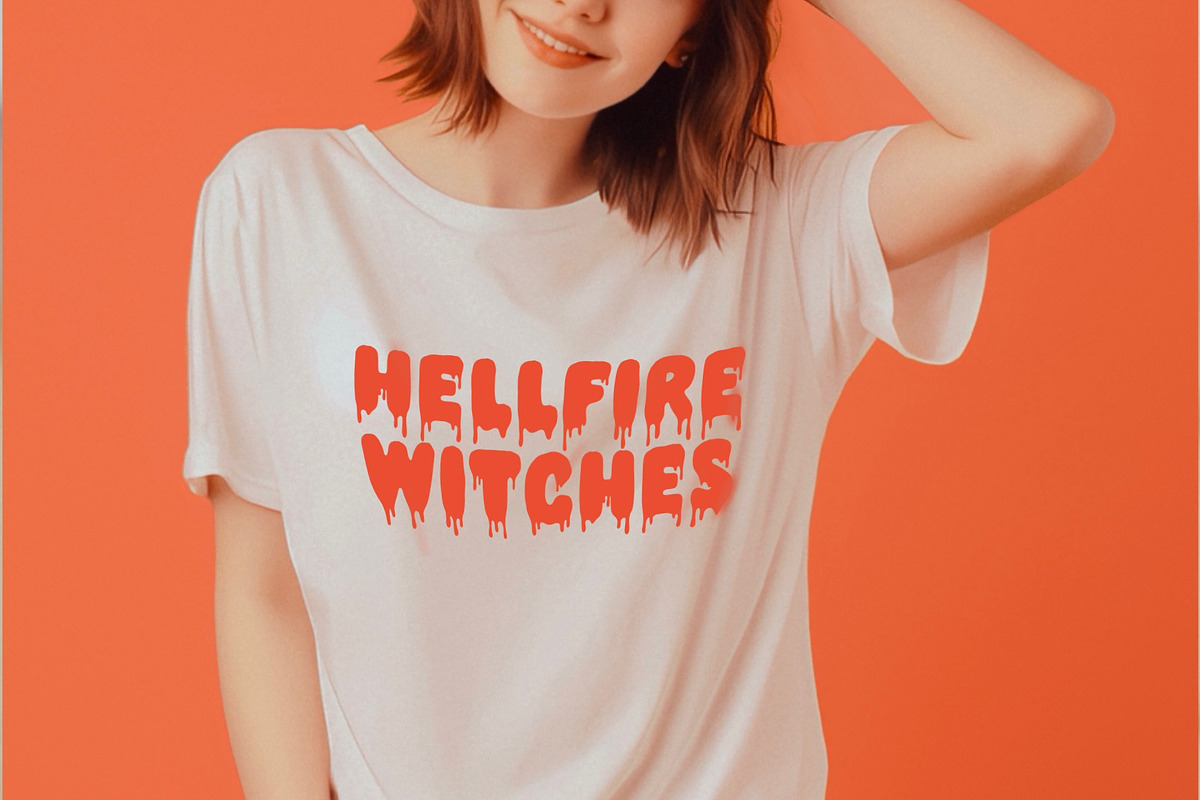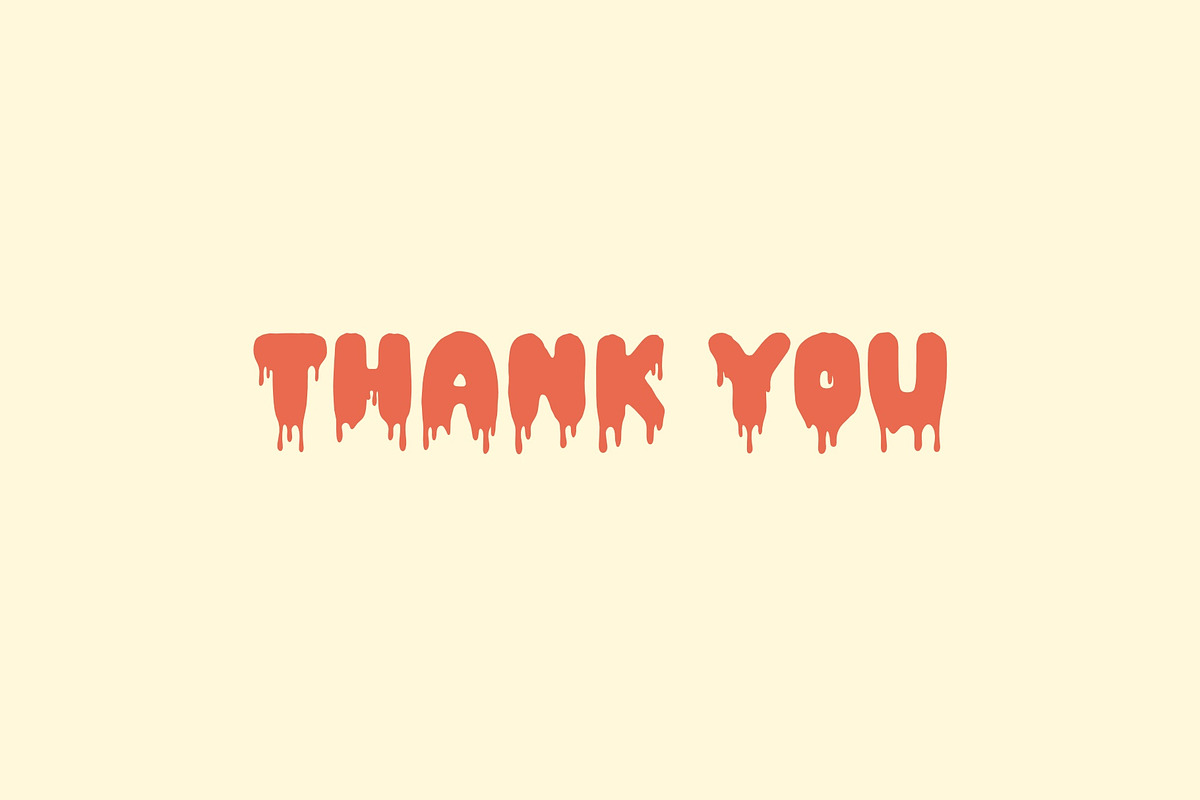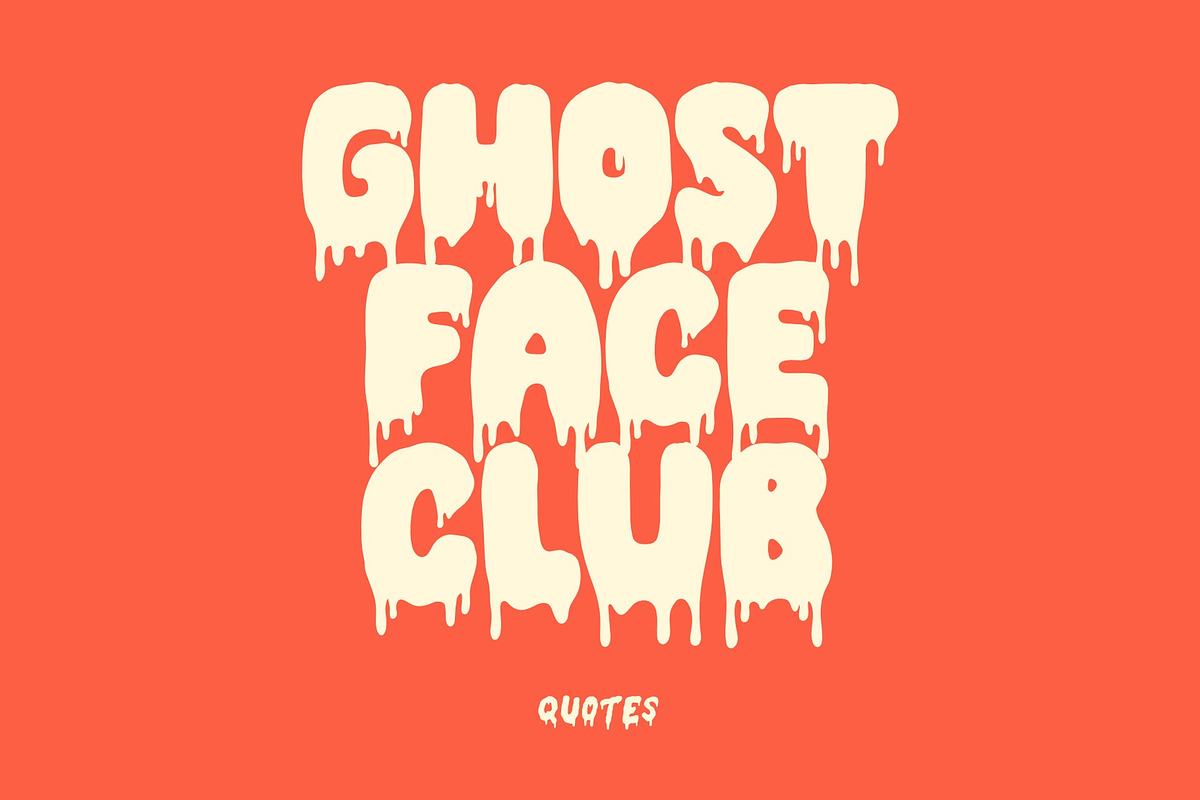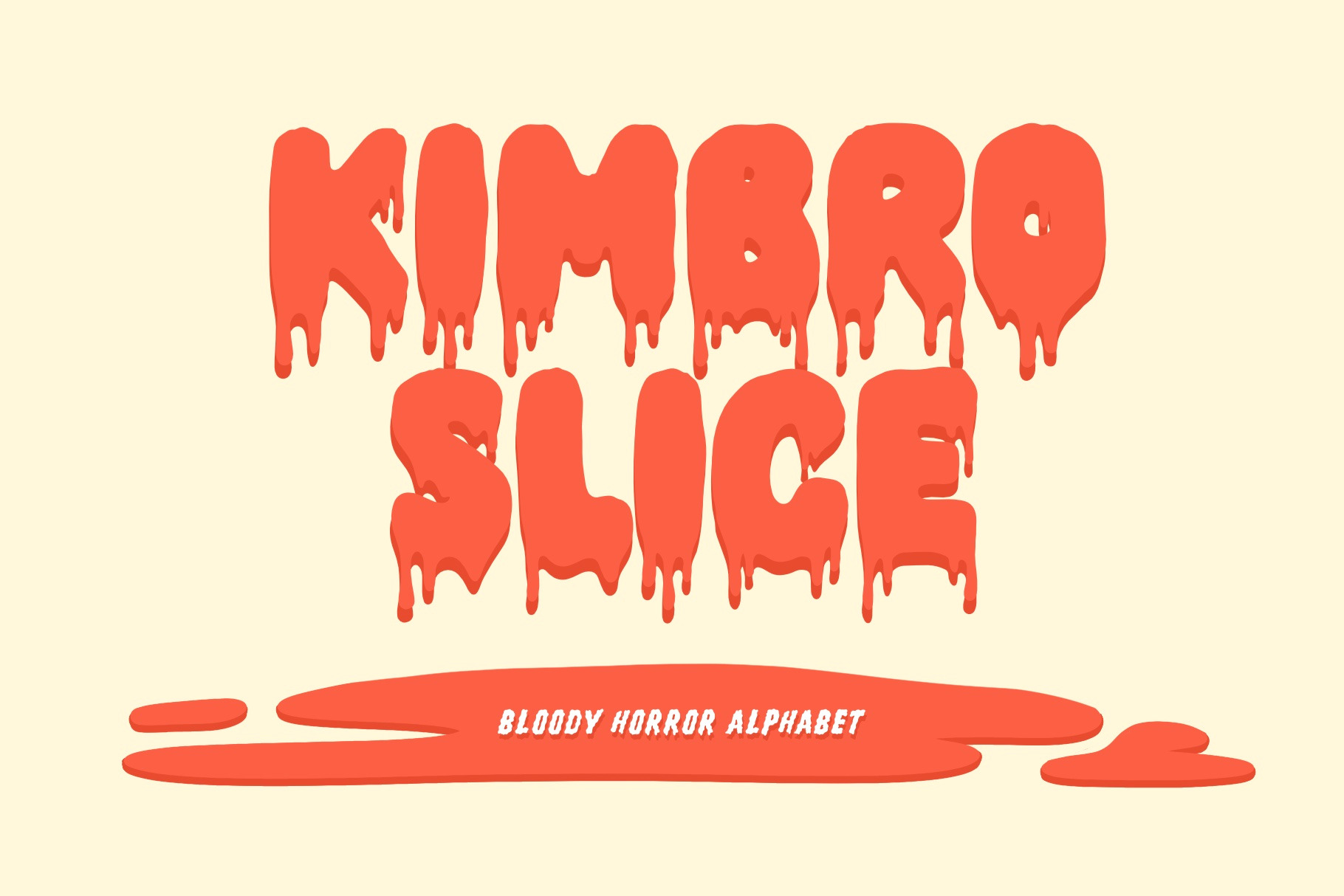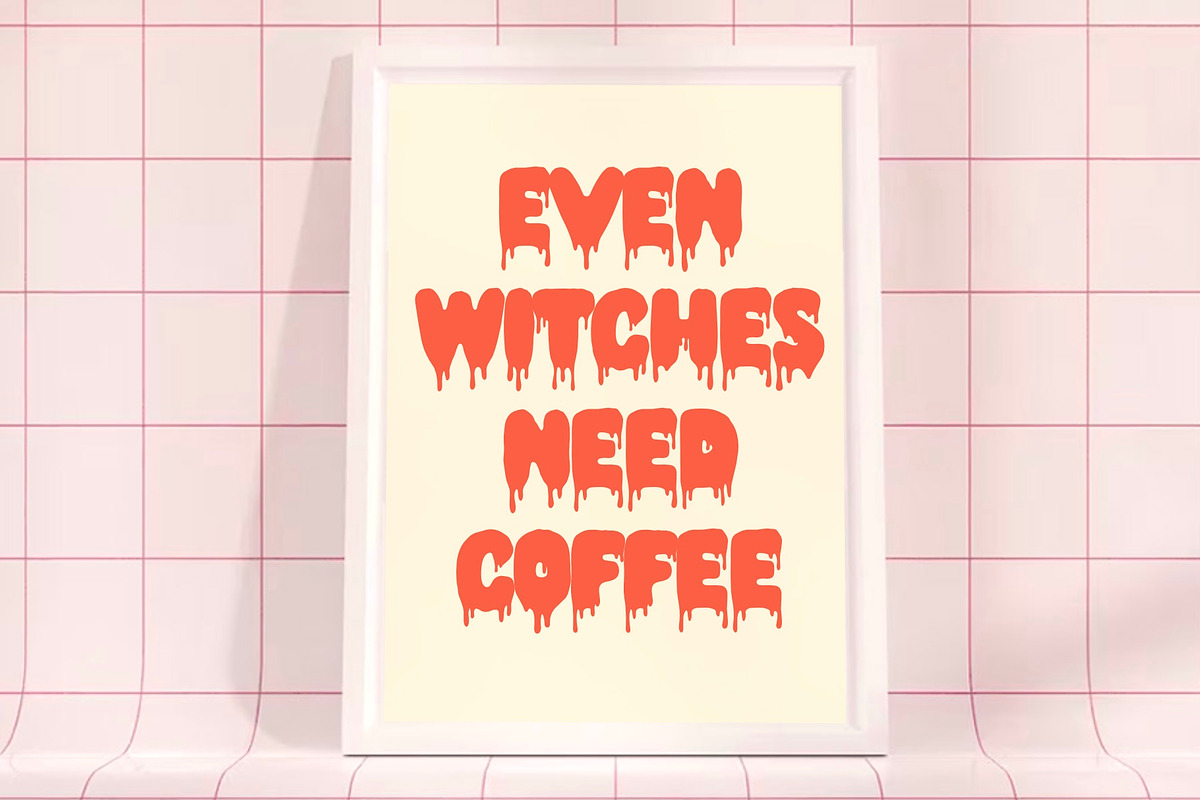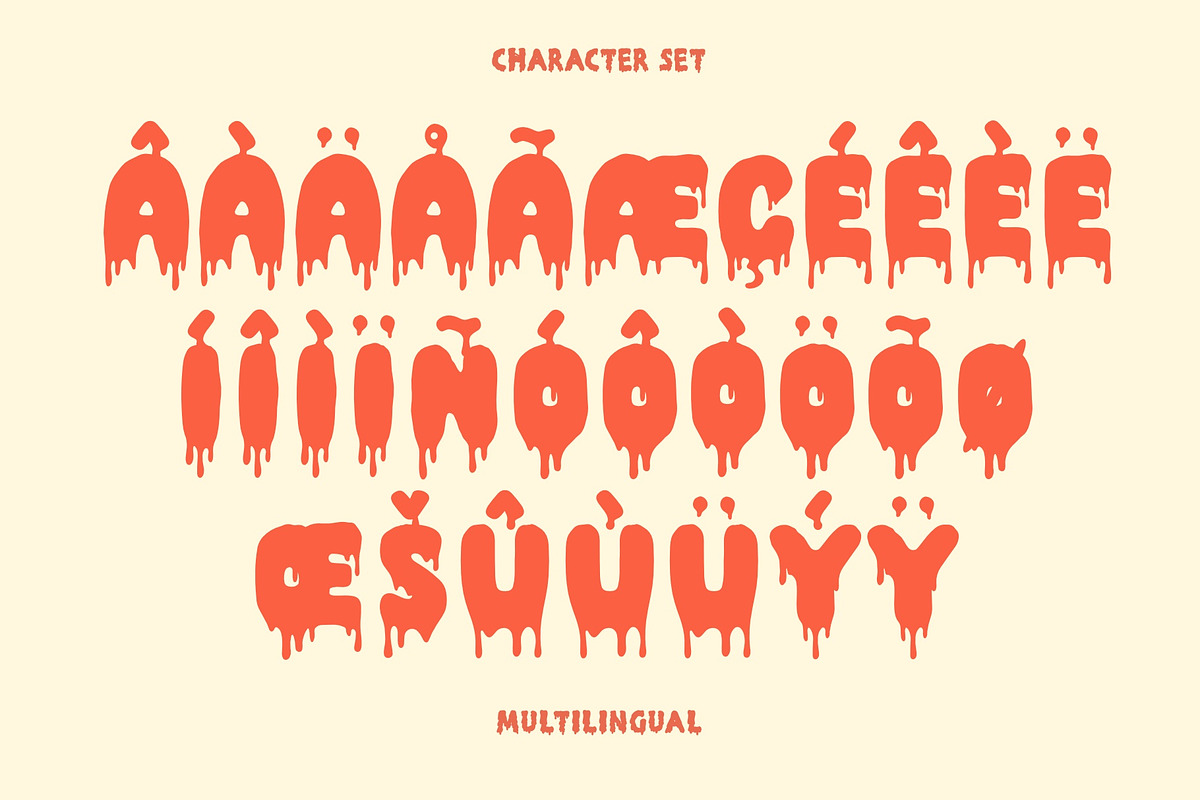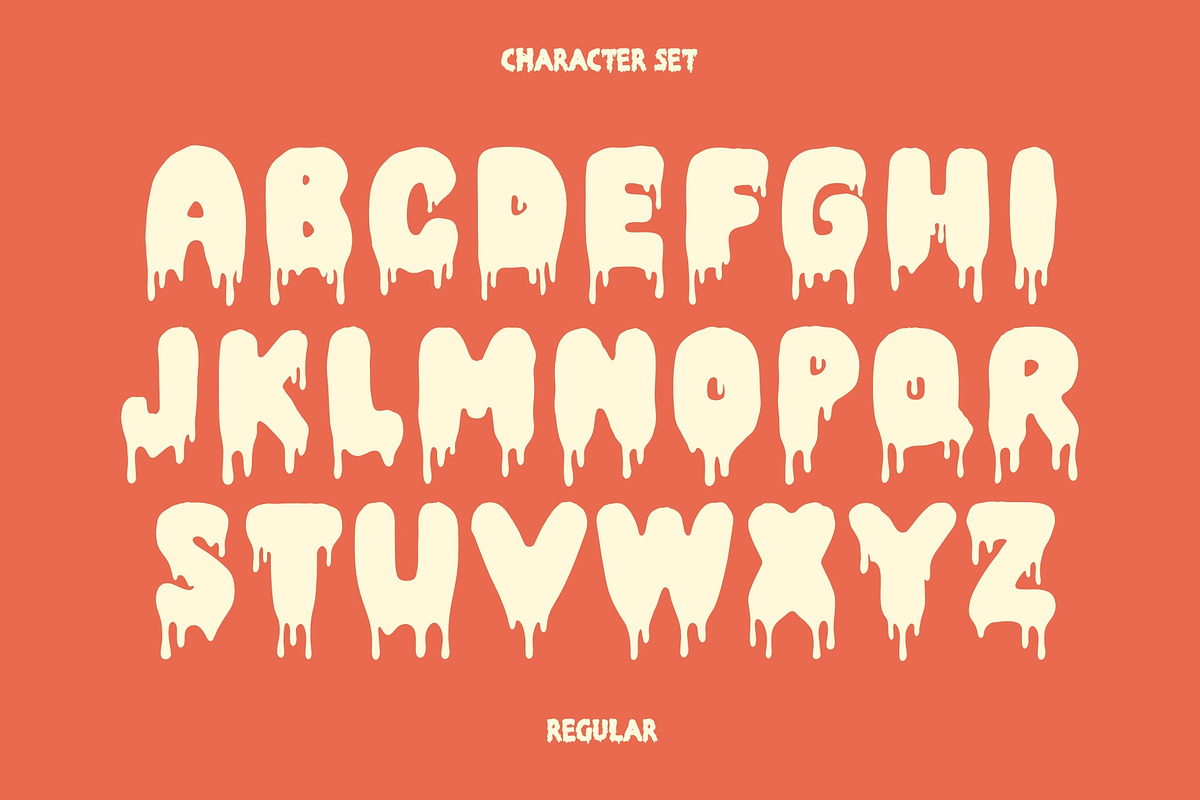
Kimbro Slice - Bold Font
Kimbro Slice is a captivating Bold Font Halloween Style that effortlessly captures the essence of the spookiest season. This typeface available in SVG format, compatible with advanced tools such as Cricut and Glowforge, and for use in Procreate. With its bold and daring letterforms, this font product exudes an air of mystery and excitement, making it the perfect choice for any Halloween-themed design project.